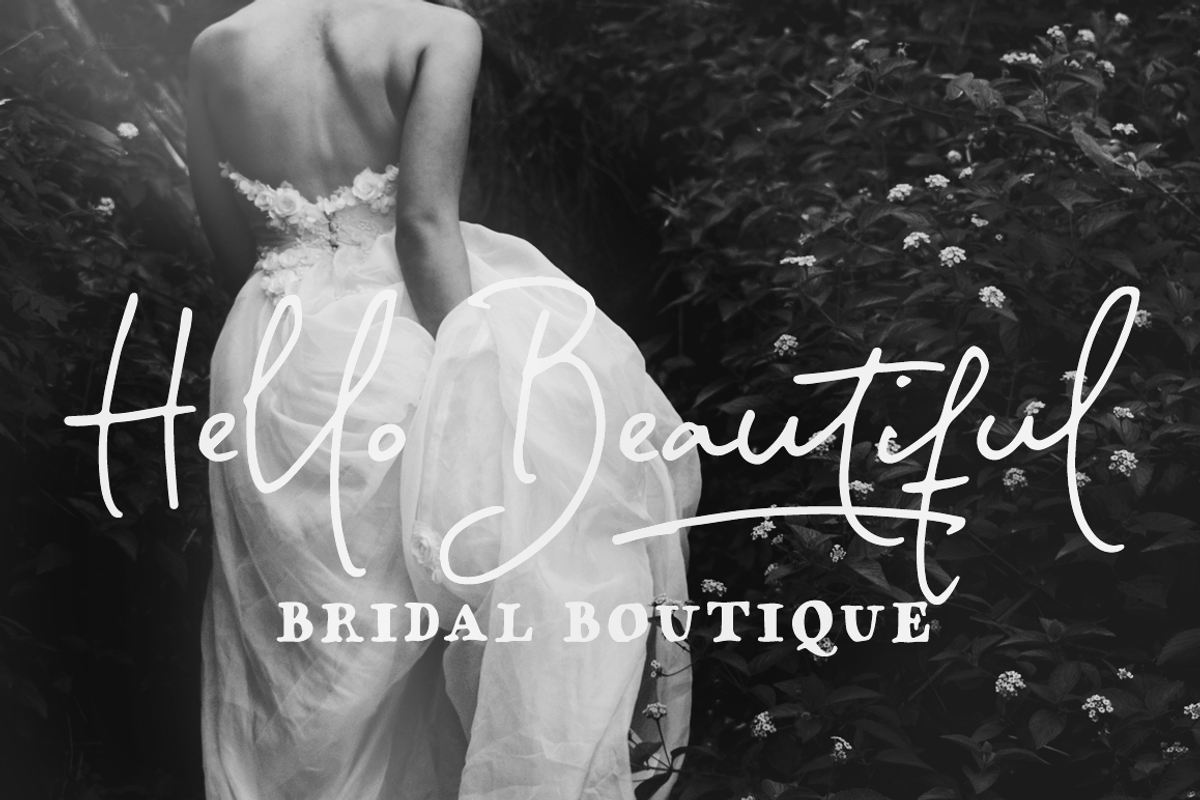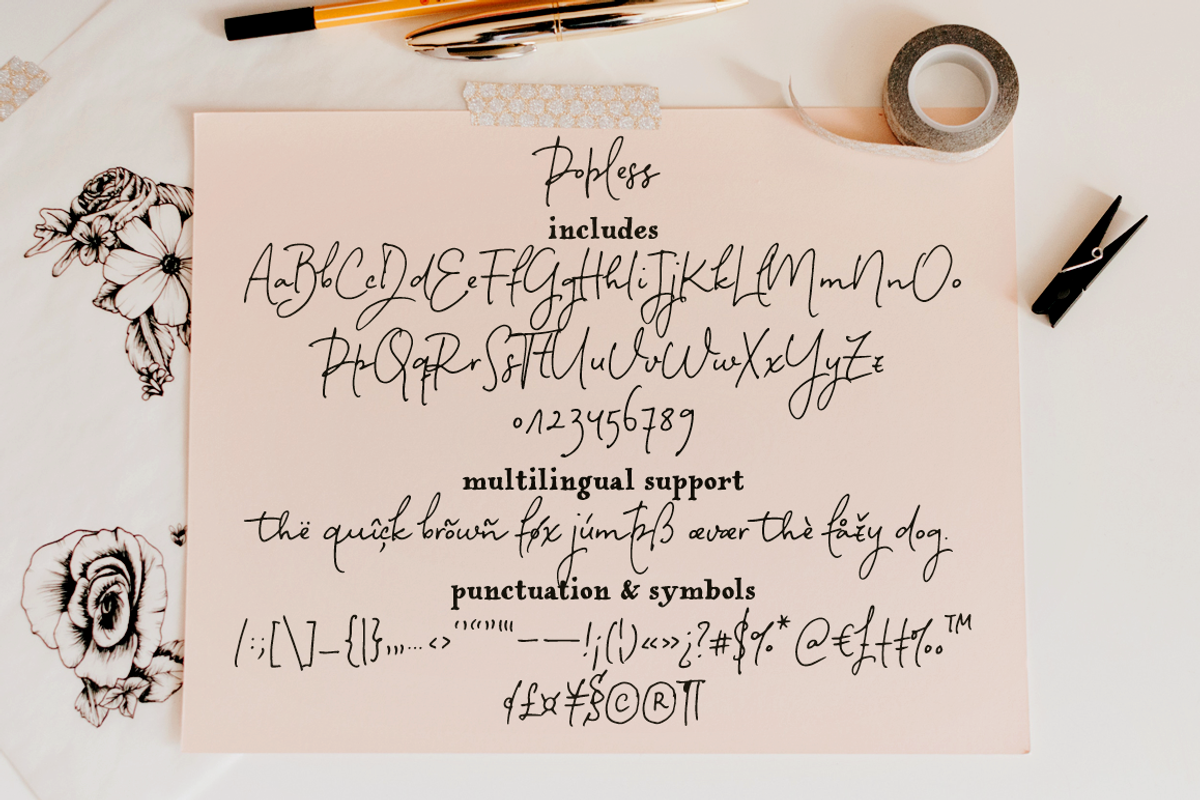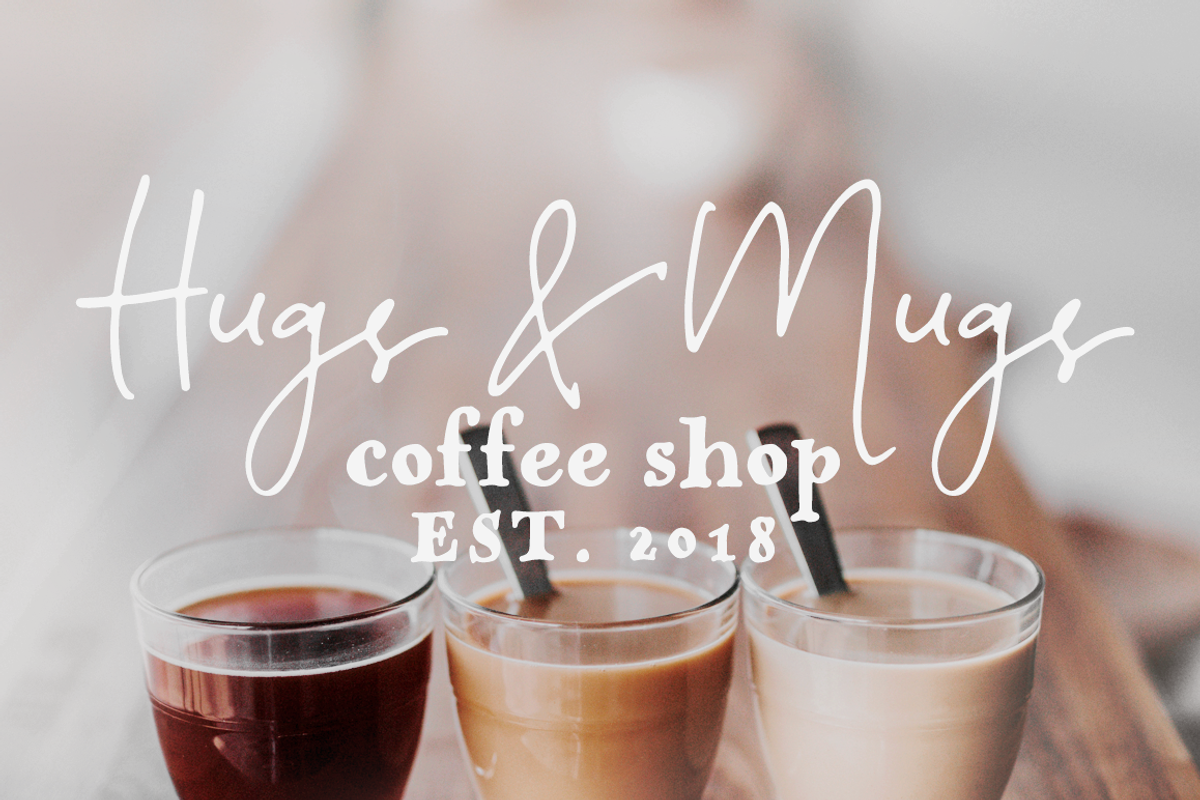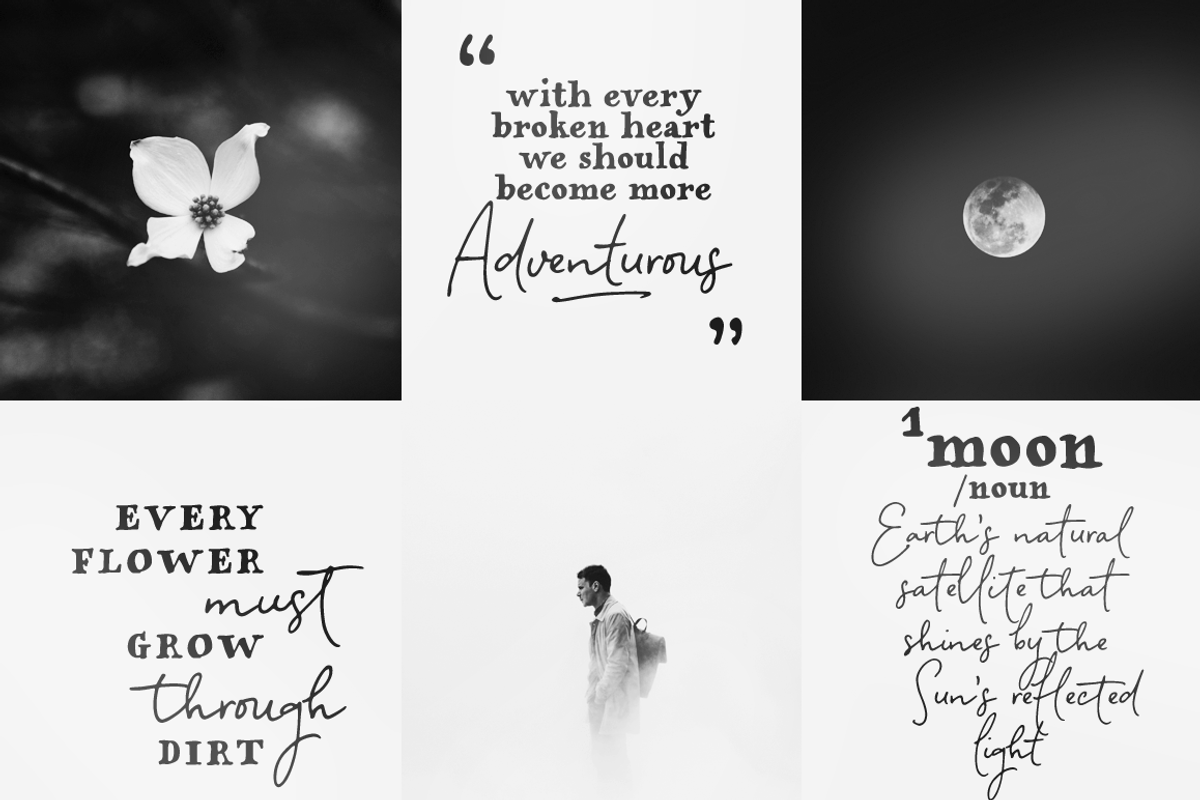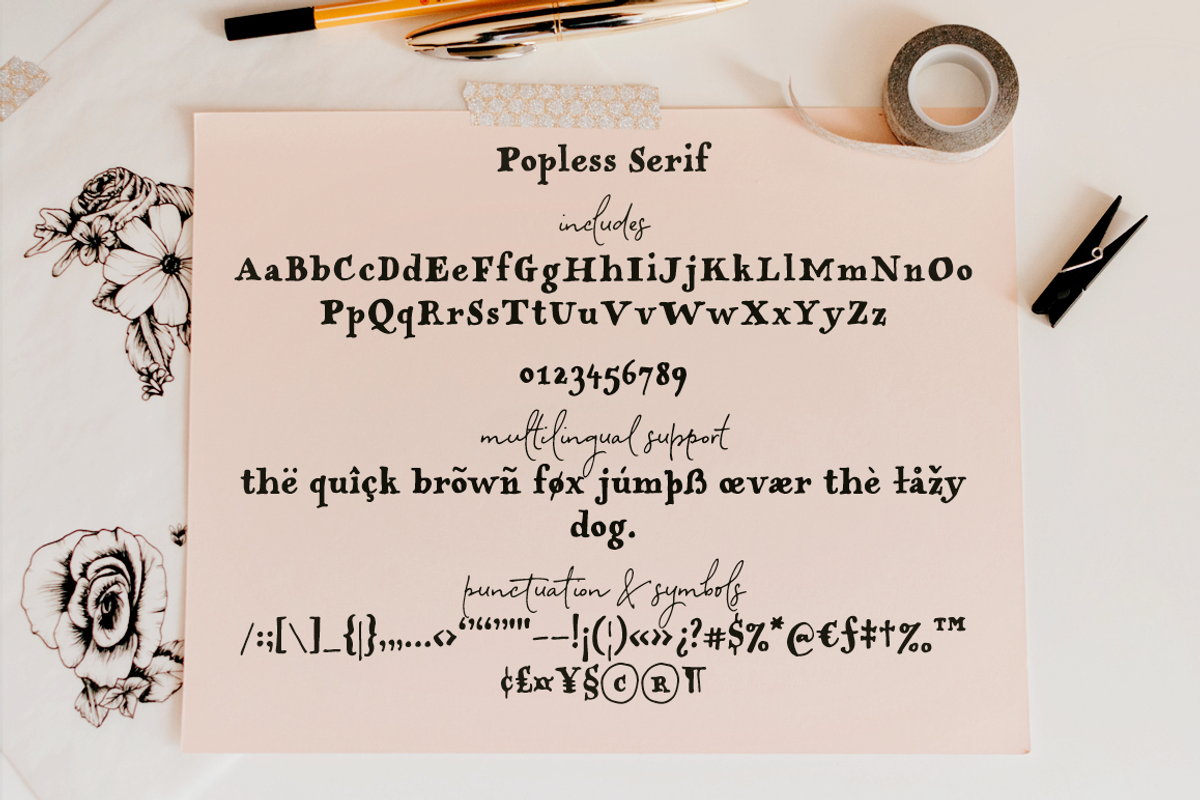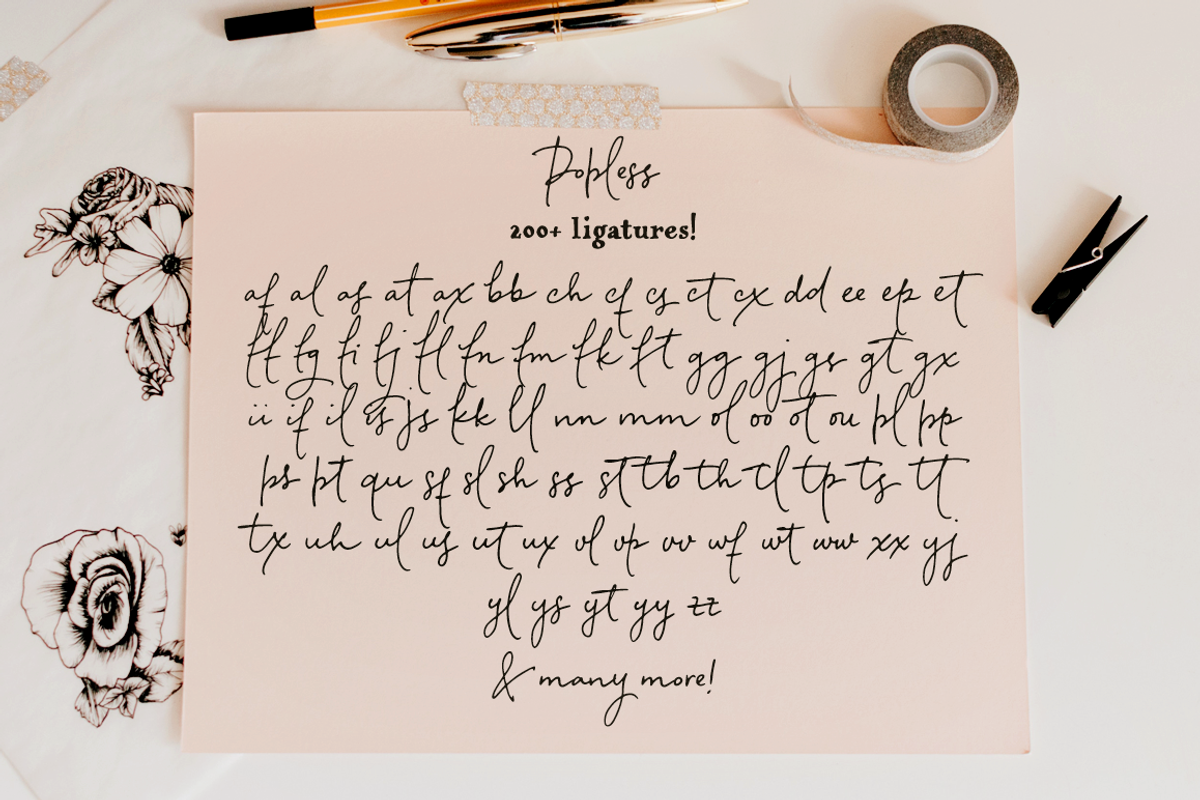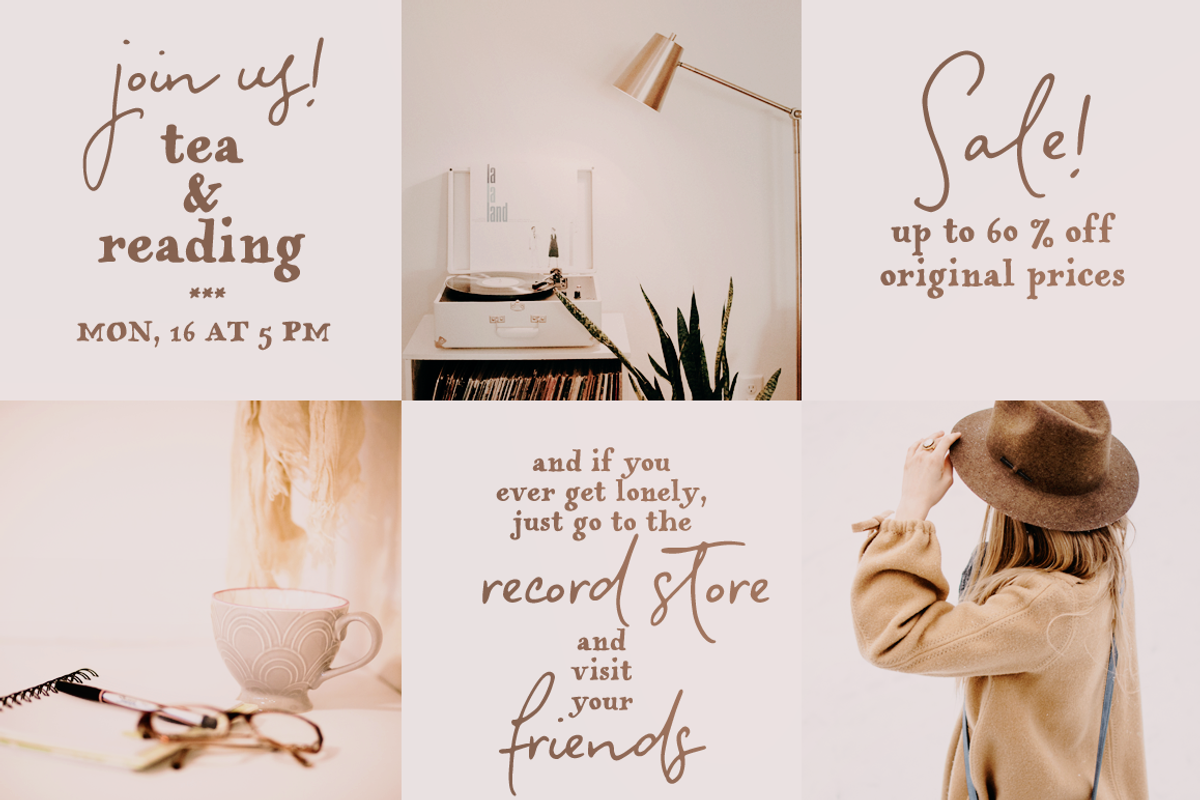
Popless script and serif font duo
Popless is a hand-lettered font duo with matching swashes. It includes:
a handwritten script font with lots of ligatures to give your designs a true handwritten look;
a fun hand-lettered serif font that pairs well with the handwritten font;
a set of swashes to help decorate your text;
a bonus slanted version of the script font for an extra dose of drama.
Symbols and punctuation
Stylistic alternates (b, f, h, k, l in the script font)
Perfect for beautiful and easy designs with a handwritten feel, such as postcards and notes, creating logotypes, social media posts, branding and packaging, etc.